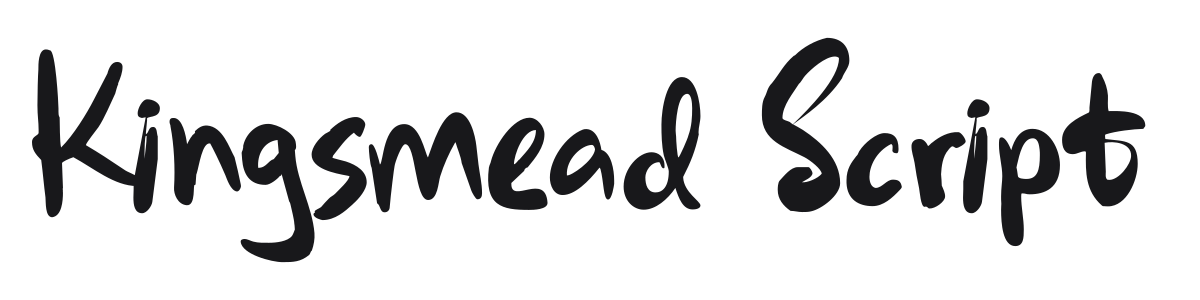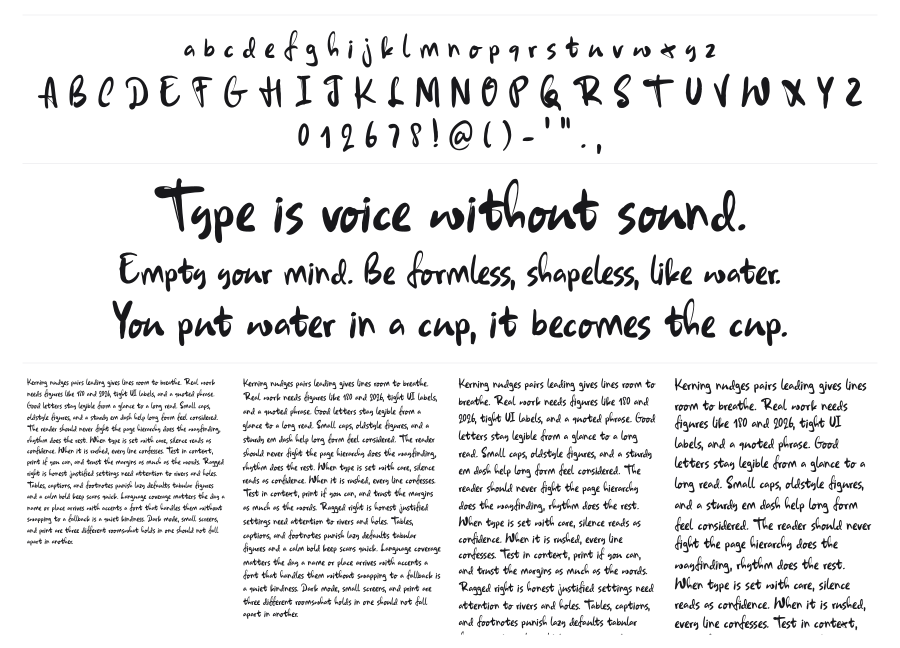
Kingsmead Script
Kingsmead Script is a casual brush script with the spontaneous energy of marker-on-paper lettering. Heavy downstrokes taper into thin connectives, and the slightly ragged ink edges keep it feeling genuinely hand-drawn rather than polished. It works well wherever a warm, personal touch matters more than precision.